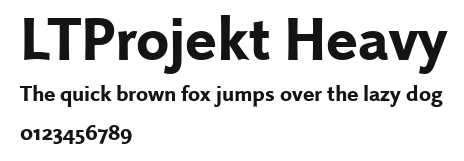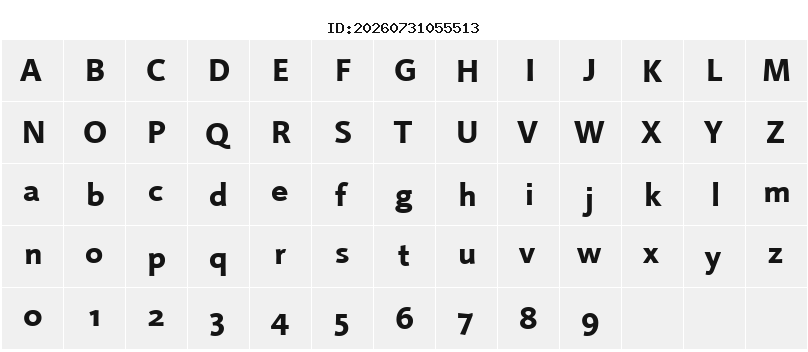
• Font Name: LTProjekt Heavy
• Full Font Name: Linotype Projekt Heavy
• Designer: Andreas Koch
About LTProjekt Heavy.ttf
LTProjekt Heavy.ttf is a modern, elegant sans-serif font designed for ultimate readability and visual harmony. Perfect for branding, headlines, web design, and print materials.